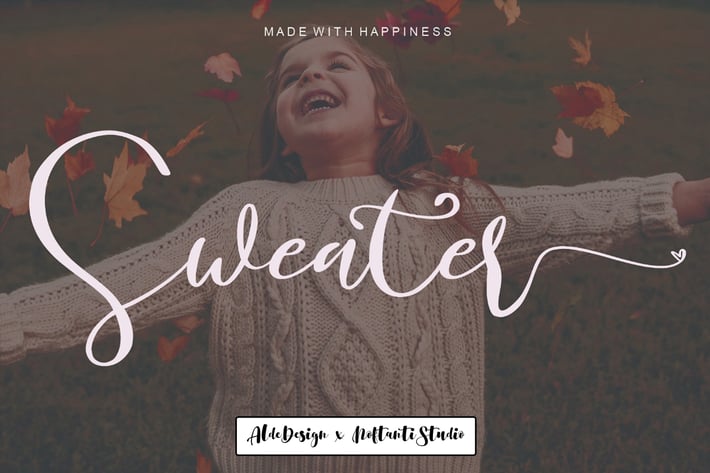
Sweater // Wedding Font
Sweater \\ Modern Wedding Script
The Sweater is a gorgeous and lovely script font. This fantastic is best suited for headlines of all sizes, as well as for blocks of text that have both maximum and minimum variations. Whether it’s for web, print, moving images, or anything else – Sweater will look spectacular.
It has beautiful and well-balanced characters and as a result, it matches a wide pool of designs. Driana Brideth features a varying baseline, smooth lines, gorgeous glyphs, and stunning alternates. Add it to your most creative ideas and notice how it makes them come alive!
Stylish modern handwritten script
Beautiful Swash (Ending tail)
Beautiful Titling (Beginning tail)
Special Ligatures